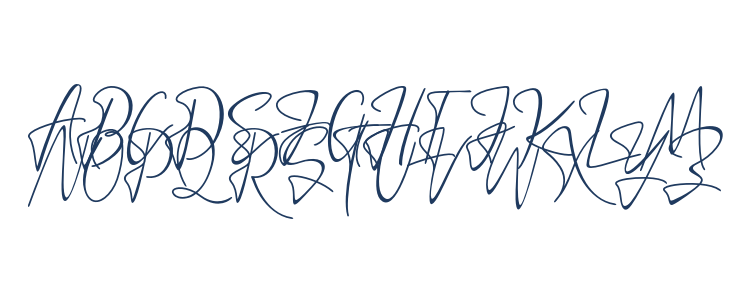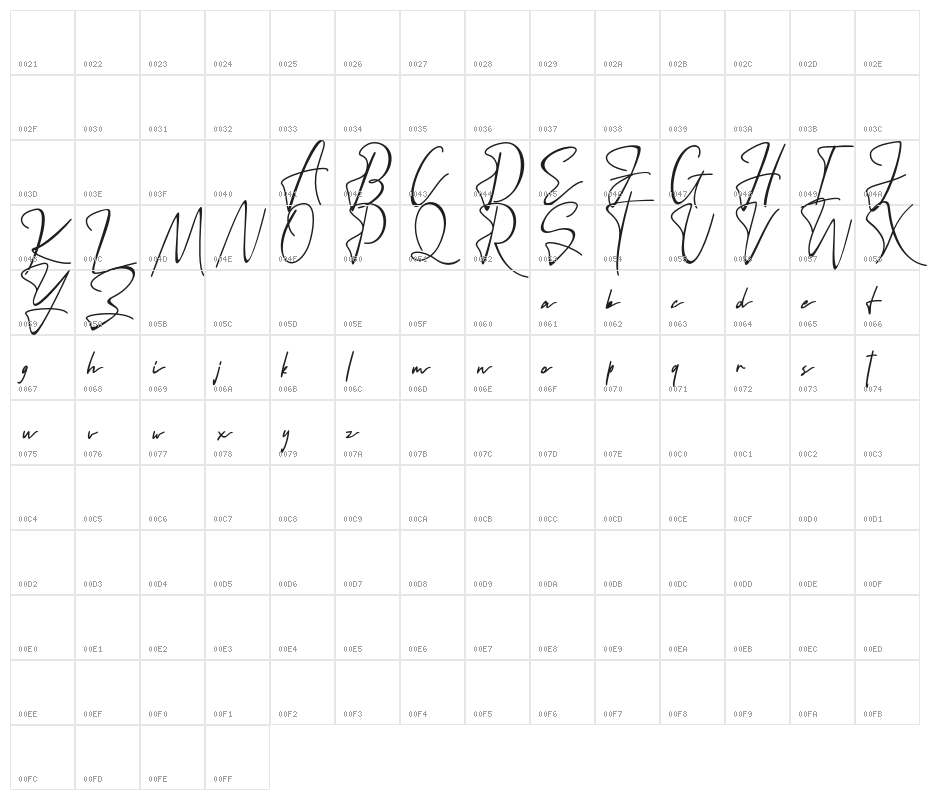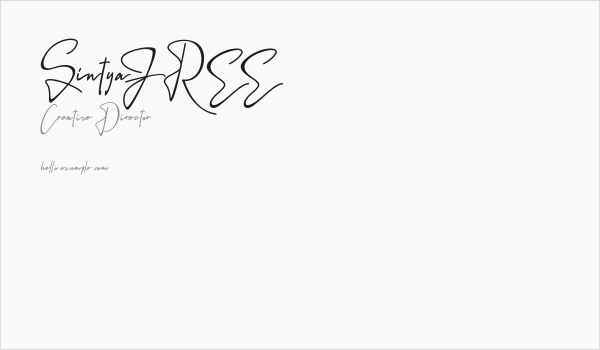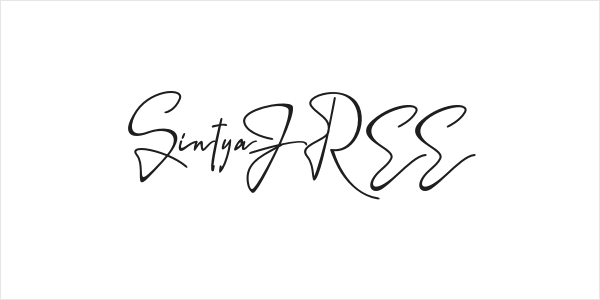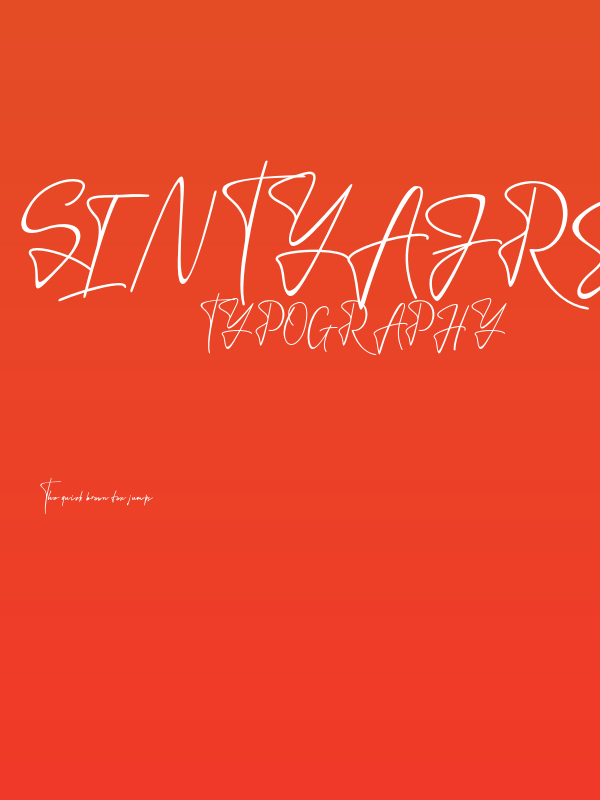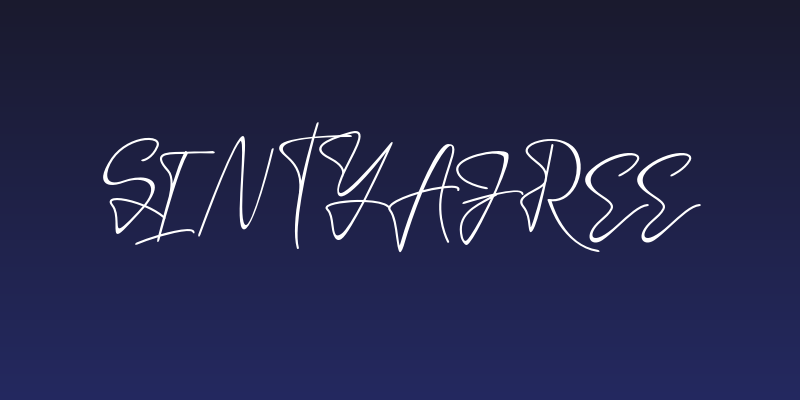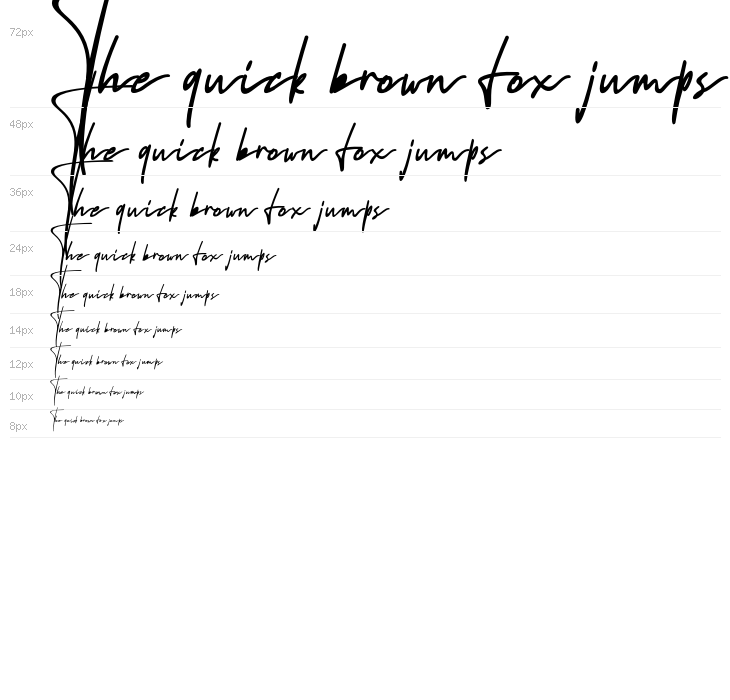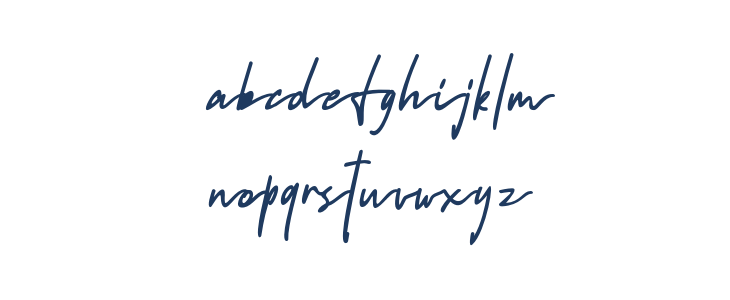
SintyaFREE Font
SintyaFREE Description
A casual, handwritten script font with a natural, flowing style. The uppercase letters are thin and airy, while the lowercase letters are bolder and more expressive, mimicking authentic handwriting with varied stroke thickness.
| Overall Style | Casual, Modern, Decorative |
| Use Case | Logos, Headlines, Invitations, Social media posts |
| Proposed Projects | Personal branding, invitations, greeting cards, social media graphics, quotes. |